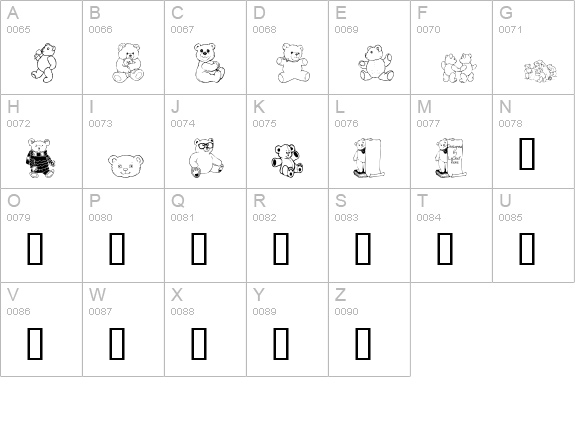
Introducing the exquisite LCR Prestigious Teddies font, a true testament to the elegance and charm of teddy bears. This font encapsulates the warmth and nostalgia associated with these beloved childhood companions, capturing their endearing qualities in every meticulously crafted letterform. LCR Prestigious Teddies font is a perfect blend of sophistication and playfulness, making it ideal for a wide range of creative projects. Whether you're designing invitations for a whimsical baby shower, crafting a heartwarming greeting card, or adding a touch of sweetness to a children's book, this font will effortlessly elevate your designs to new heights. What sets LCR Prestigious Teddies font apart is its versatility. With a range of alternate characters, ligatures, and stylistic sets, each teddy bear-inspired letter can be customized to suit your desired aesthetic. The attention to detail is truly remarkable, showcasing the intricate stitchwork and delicate features that make teddy bears so cherished. But perhaps the most remarkable aspect of LCR Prestigious Teddies font is that it is freely available to download at FontsMarket.com. Yes, you read that right – you can indulge in the beauty and charm of this font without breaking the bank. Now, you can add a touch of teddy bear magic to your designs with ease. So, whether you're a professional designer, a creative enthusiast, or simply someone who appreciates the timeless appeal of teddy bears, LCR Prestigious Teddies font is a must-have in your font library. Download it today at FontsMarket.com and let your creativity soar with the adorable companionship of these prestigious teddies.